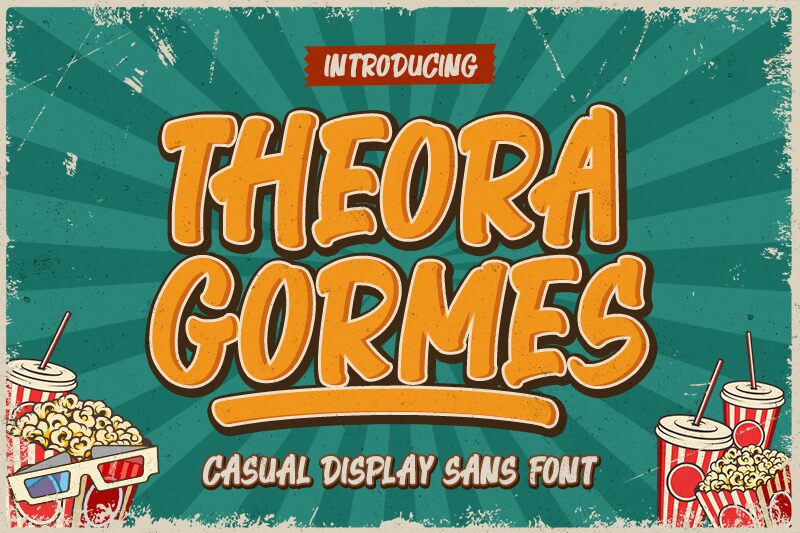
Theora Gormes, designed by M Arif Dwi Prasetyo and Eko Nurcahyo, is a bold display font with a comic style. It's perfect for projects that require an eye-catching, out of the ordinary look such as logos, posters and t-shirts.
Theora Gormes
M Arif Dwi Prasetyo & Eko Nurcahyo